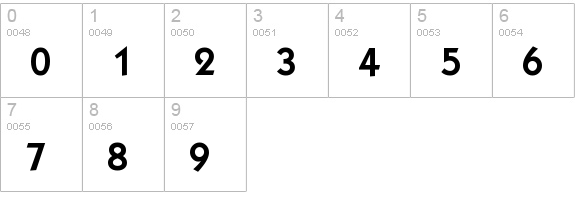
Koblenz-Demi Font Details
Koblenz-Demi is a sub-bold, structured variant in the Koblenz typeface family \xE2\x80\x94 well suited to sub-headlines and emphasised passages.
Koblenz-Demi is a modern and elegant font that exudes sophistication and professionalism. With its bold weight and clean lines, this typeface is perfect for creating eye-catching headlines, logos, and branding materials. The Koblenz-Demi font strikes the perfect balance between traditional and contemporary, making it versatile for a wide range of design projects. What sets Koblenz-Demi apart is that it is not only visually appealing but also completely free to use. This means that designers and creatives can access this high-quality font without any cost barriers. Whether you're working on a personal project or a commercial endeavor, Koblenz-Demi offers a reliable and stylish option for your typography needs. For those interested in incorporating Koblenz-Demi into their designs, this font is readily available for download at FontsMarket.com. By visiting the website, users can easily access and install Koblenz-Demi to enhance their creative endeavors. Don't miss out on this fantastic opportunity to elevate your designs with the timeless beauty of Koblenz-Demi font.